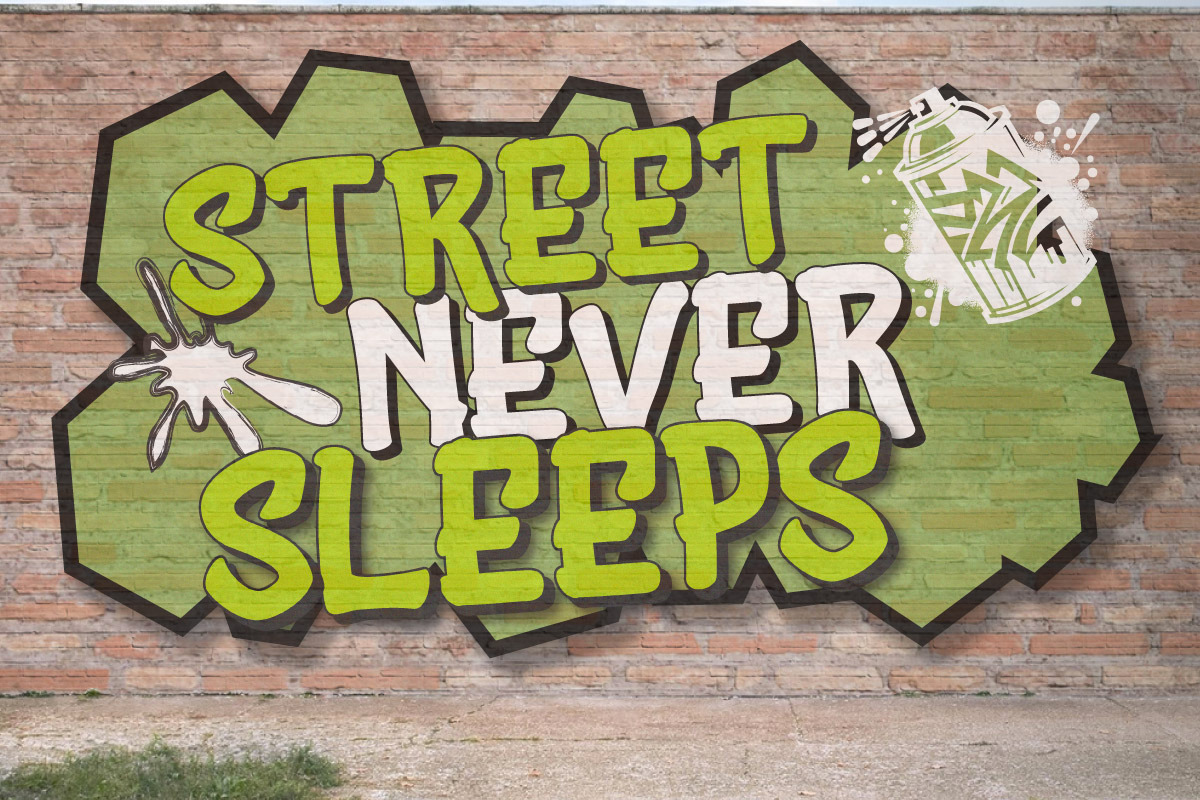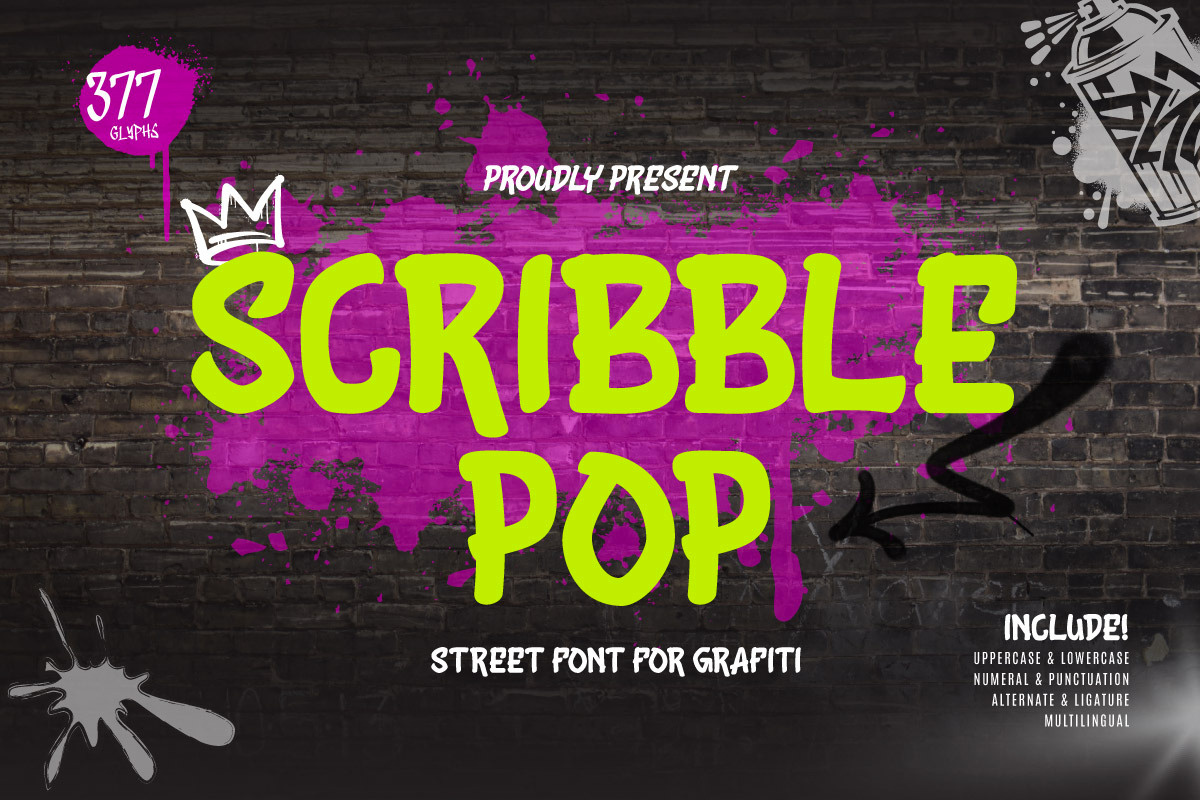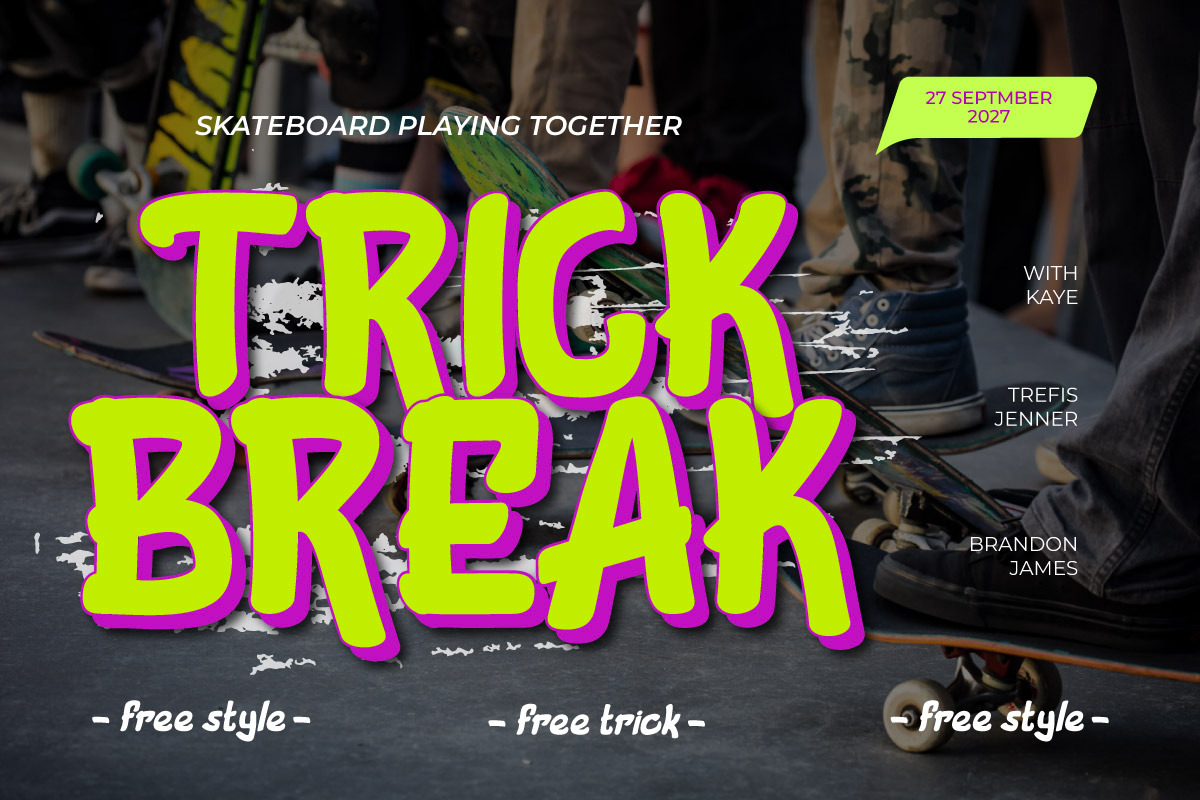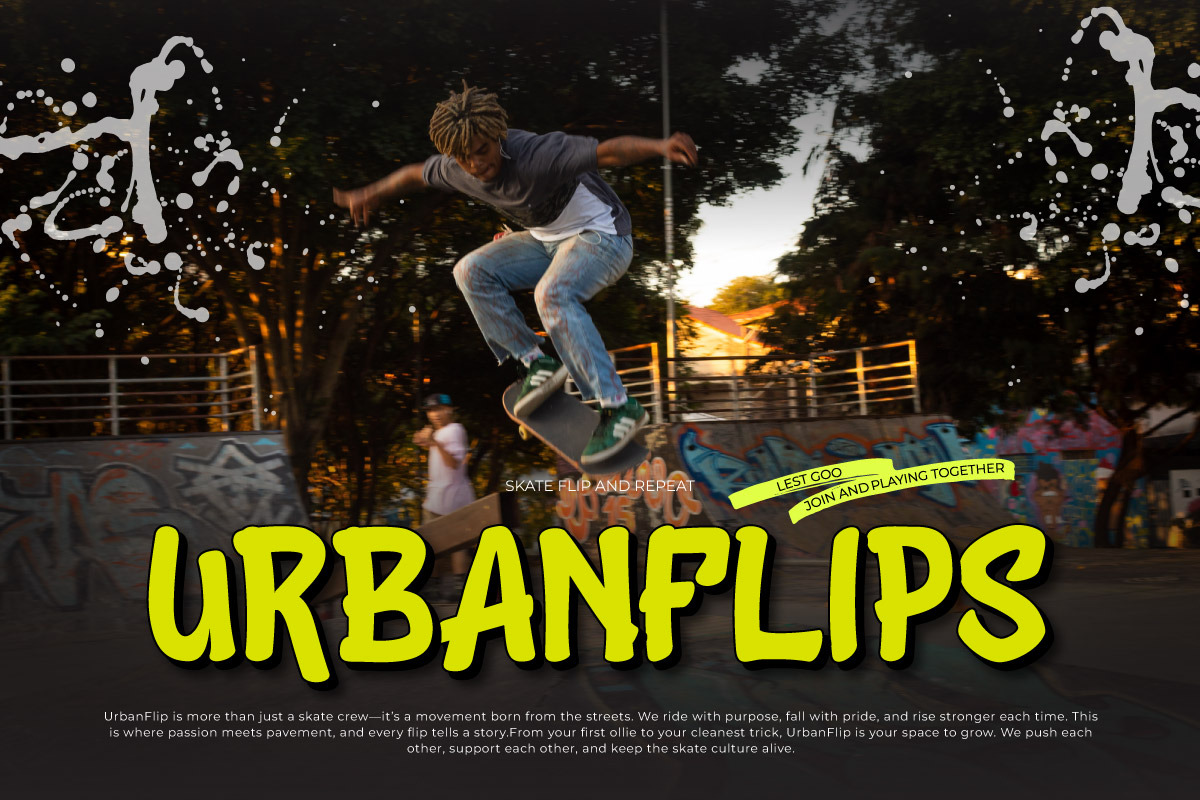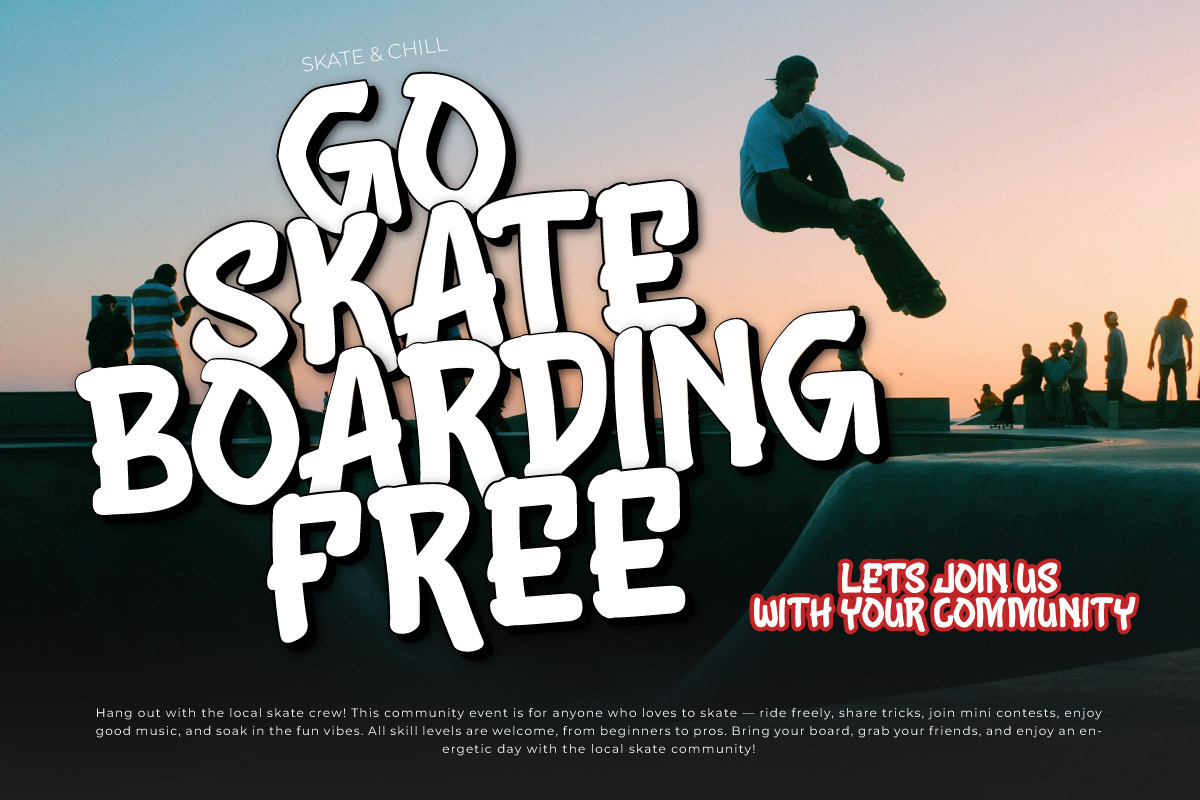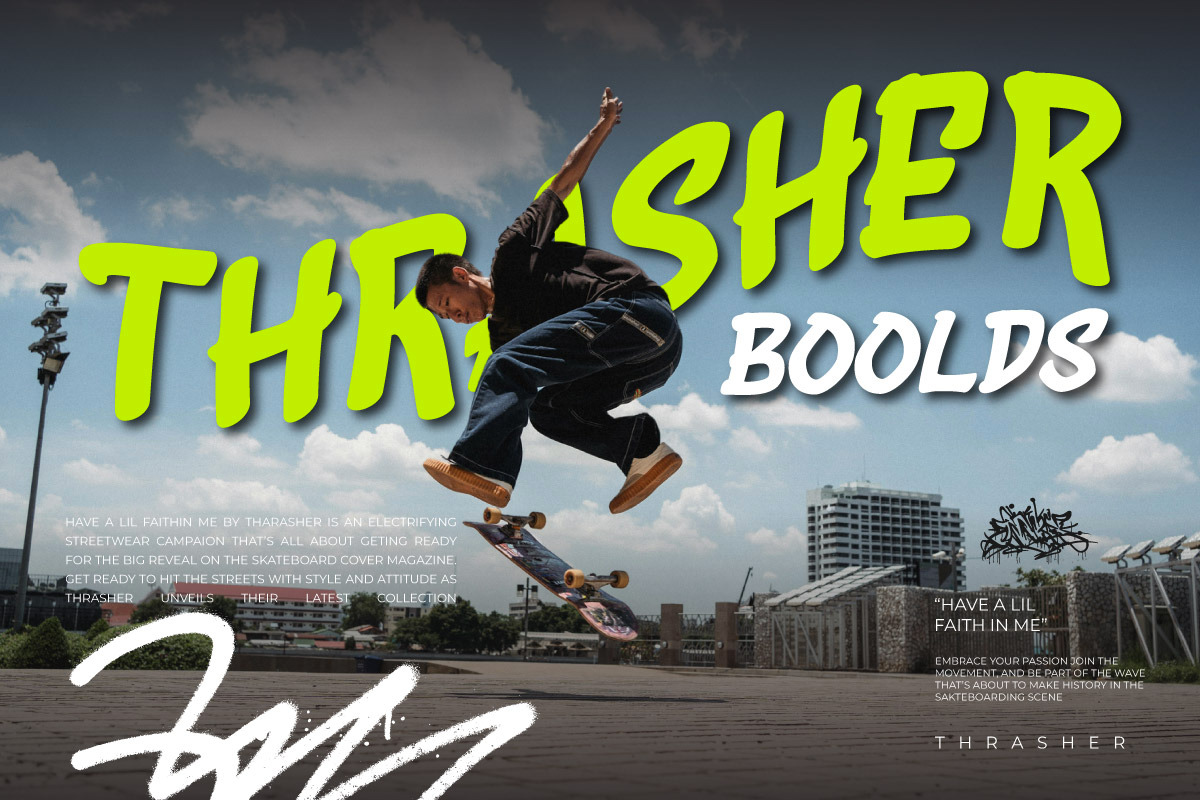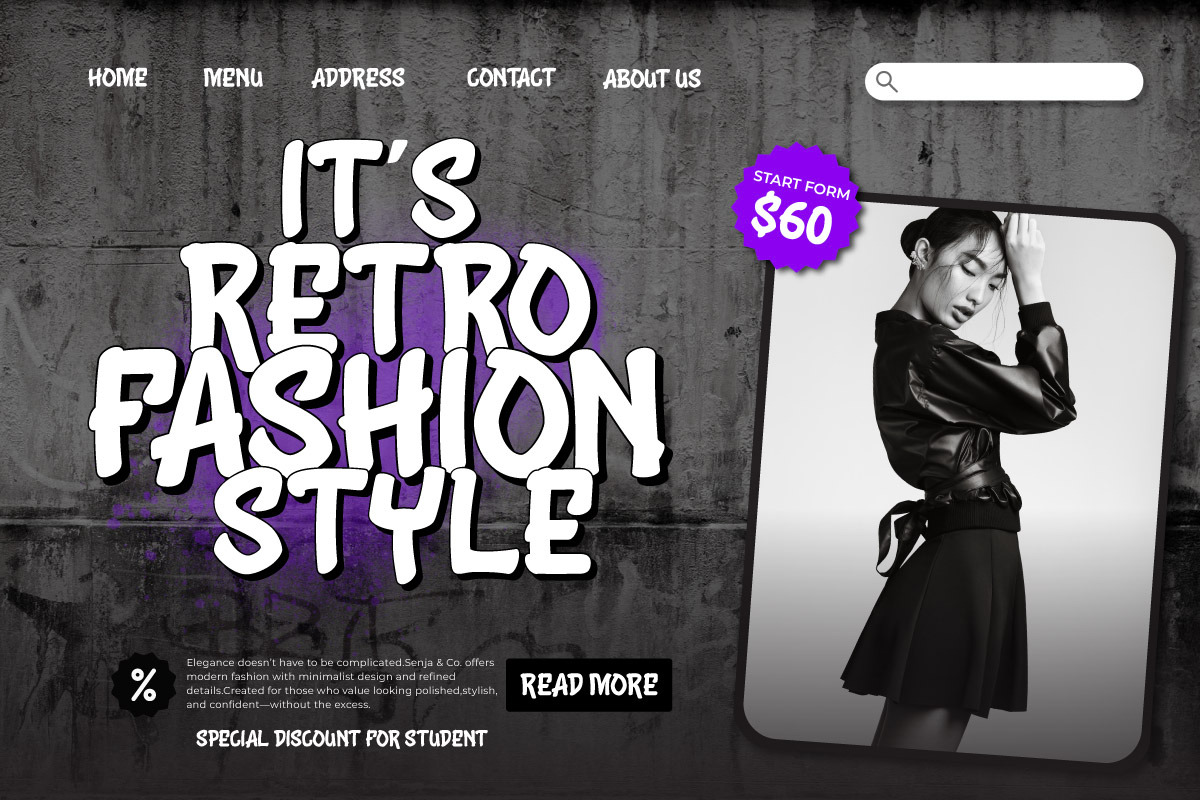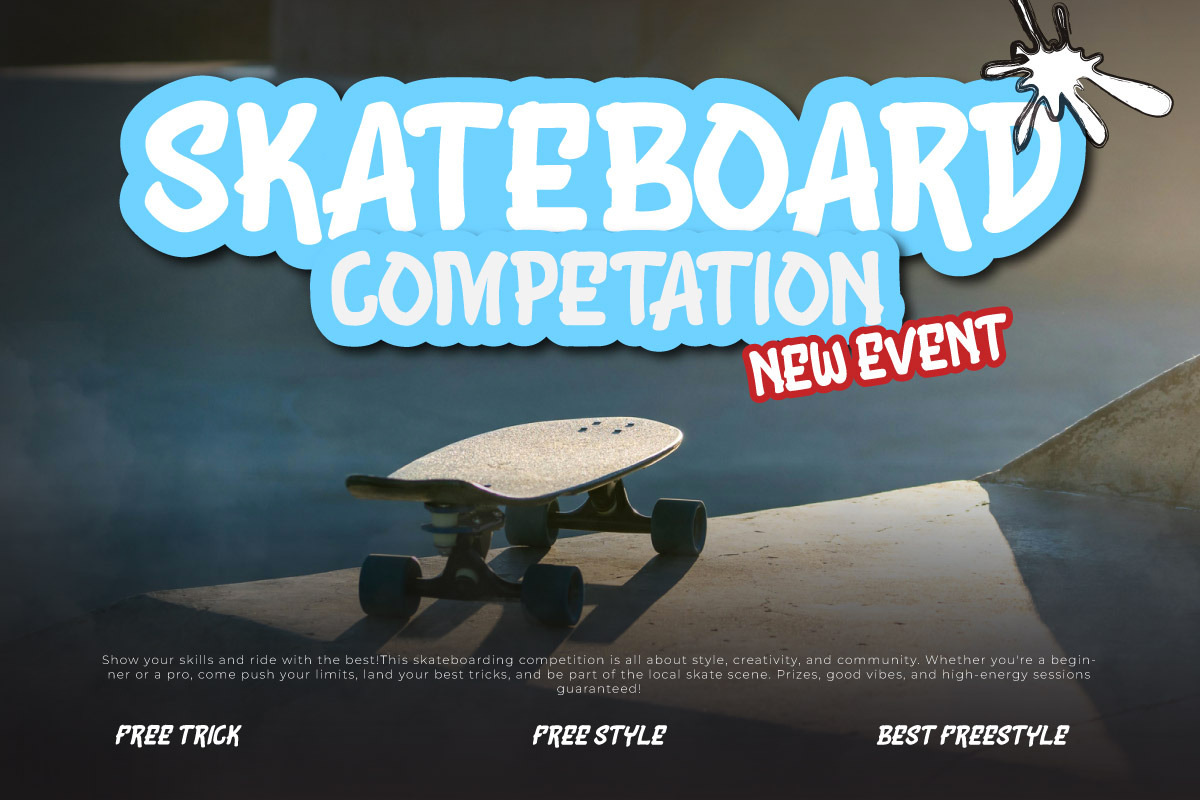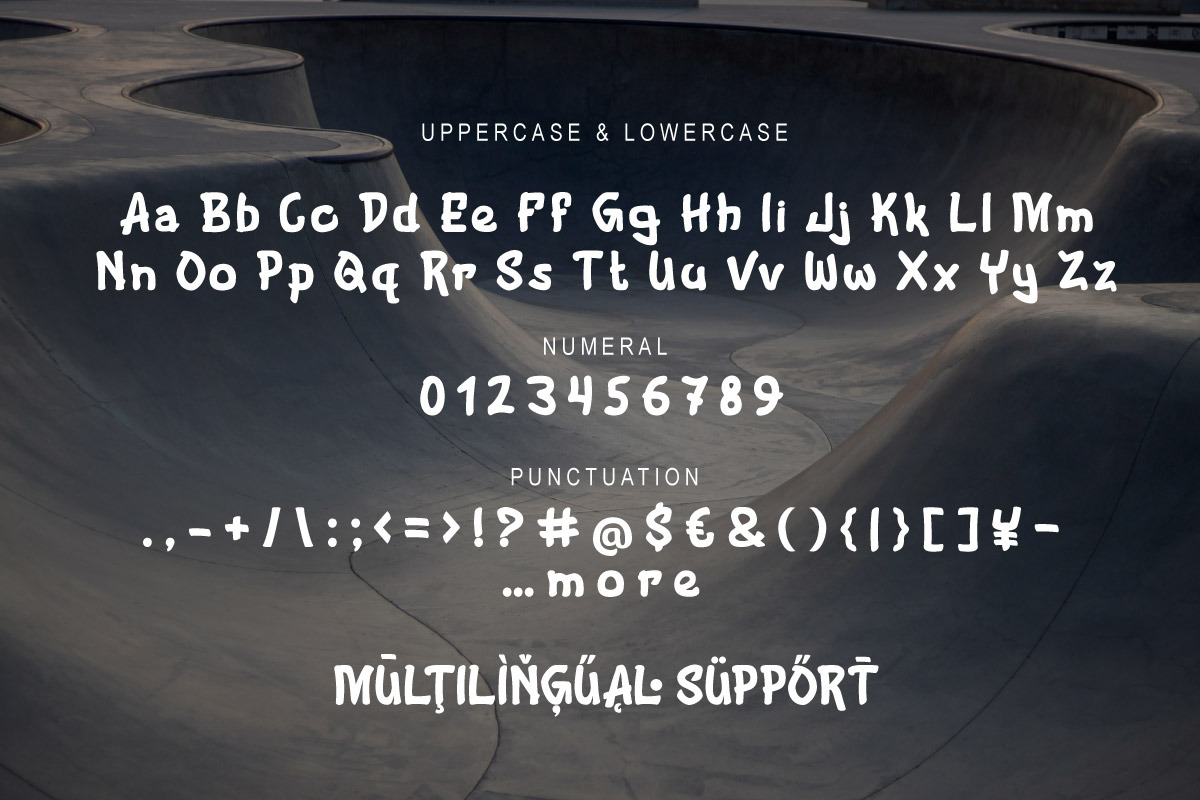
Scribble Pop - Street Graffiti Font
Scribble Pop is a bold, energetic street graffiti font that bursts with character and raw urban flair. Designed to capture the spirit of street art, this display font blends sketch-style strokes with playful curves, making it perfect for projects that demand attitude and edge.
Whether you're creating youth-oriented branding, music album covers, event posters, or streetwear designs, Scribble Pop adds a punch of rebellious fun to your visuals. Its hand-drawn aesthetic delivers a gritty yet expressive vibe—ideal for designers who want to make a bold statement with style.
Loaded with uppercase and lowercase letters, punctuation, and multilingual support, Scribble Pop is versatile and ready to spray its charm across digital and print projects alike. Give your designs a street-smart soul with this one-of-a-kind graffiti typeface.